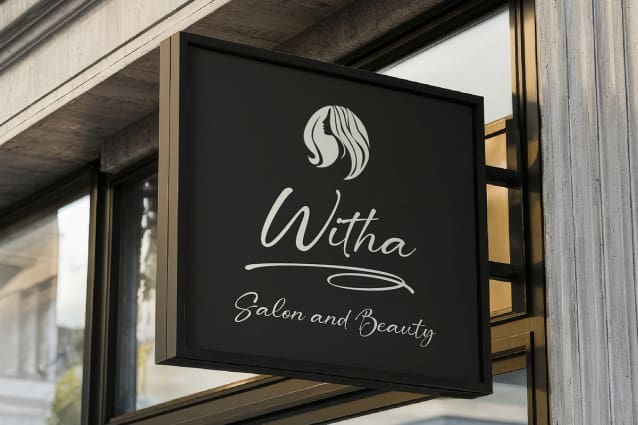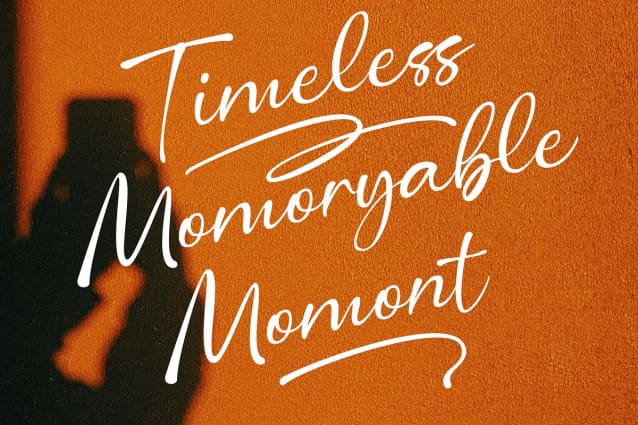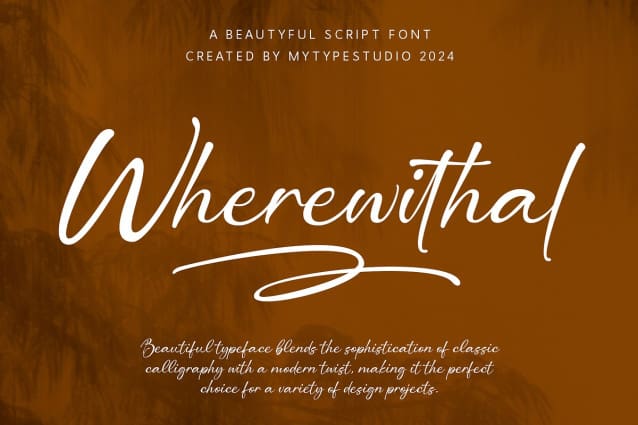
Wherewithal Script Font
Wherewithal Script Font, a stunning script font meticulously crafted by Mytype Studio. This beautiful typeface blends the sophistication of classic calligraphy with a modern twist, making it the perfect choice for a variety of design projects.